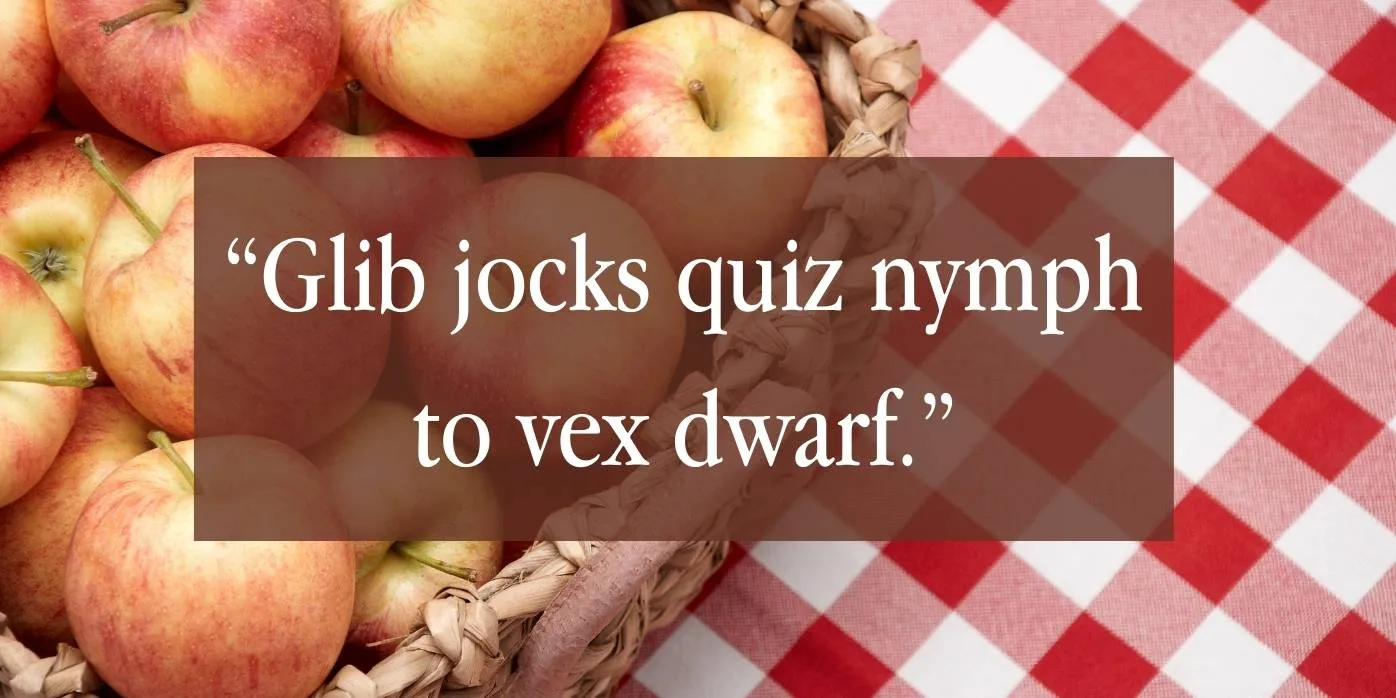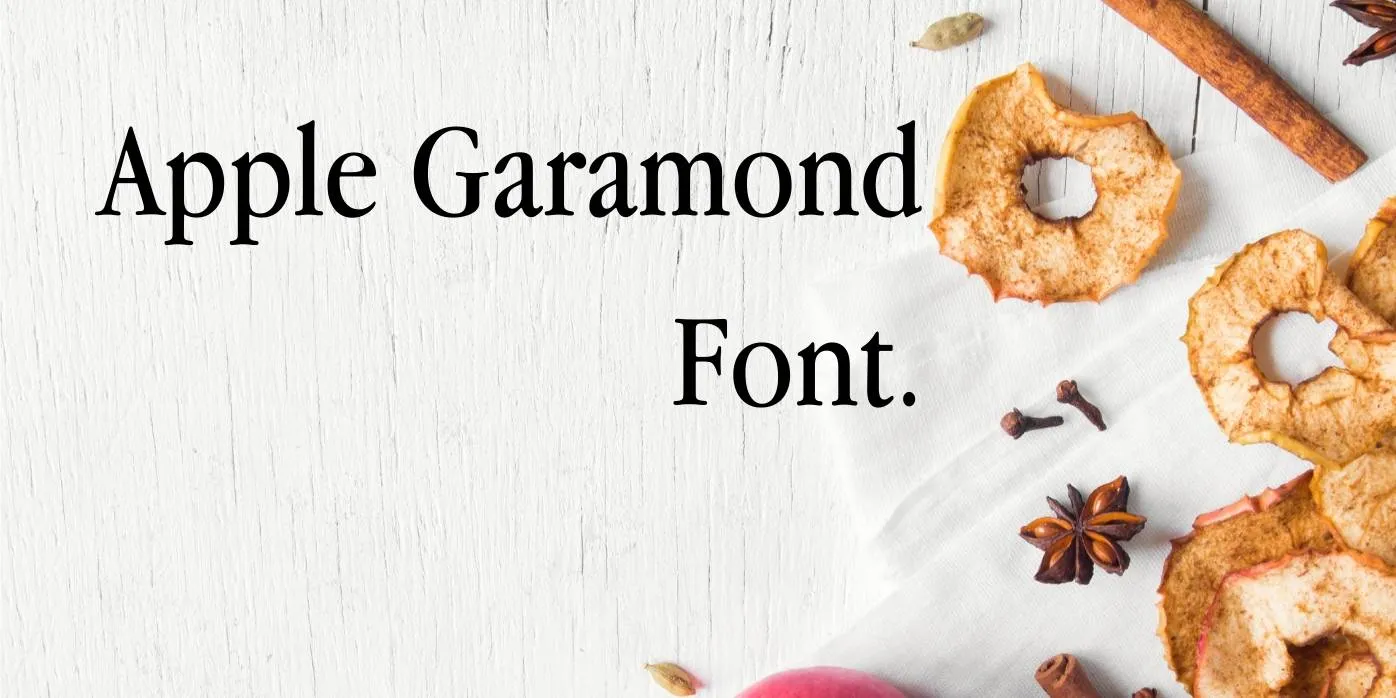
Apple Garamond Font
Apple Garamond font was designed by Apple in California. It was designed to be an open-source font family, this classy font has many similarities with the original typeface Garamond. This staggering typeface is available in three weights: regular, medium, and light. These typefaces for apple OSX are included with apple mac computers.
This cozy typeface is very famous and this font family was well-liked by people who used apple devices. This awesome font is a very Macintosh-friendly font, so it is perfect for Apple users. This nice typeface looks similar to Palatino font or Baskerville. Nirvana font is most similar to this typeface.
In other words, this typeface is a stylish font that looks sharp. This classy font stands out for its pronounced elegance and readability. This font has a great tone, this typeface is sharp and clean, so this Font really works perfectly in headlines and titles. Usage This classy font is used most often in print media and apple commercials.
Many designers used this font for apple logos. Apple company used this font for the apple logo in apple commercials and other apple print media like apple ads. Nowadays this typeface is also used by many people who create websites or blog pages about apple devices or apple software, so you can use this tremendous font to make articles. This awesome font is the best used in offices, commercials, devices advertisements, blog posts, and various articles.
This stunning font has keen features, and this font gives an old-fashioned look to the text. This font family is very easy to read, so you can read the font family very easily. Its unique characters and sharpness make this font an excellent choice for apple-related websites and blog posts. In order to enjoy its advanced features, you can use this font with the pairing of Century Schoolbook Font.
Apple company created this font. Apple is the best company for apple devices and apple software, they have a nice history of creating a font. Where is Garamond used? This exceptional typeface is used in Apple devices, print media advertisements, logos, software.
Who uses Apple Garamond? This stunning font is used by users, fans, and many devices owners. It has cleaned and bold features.